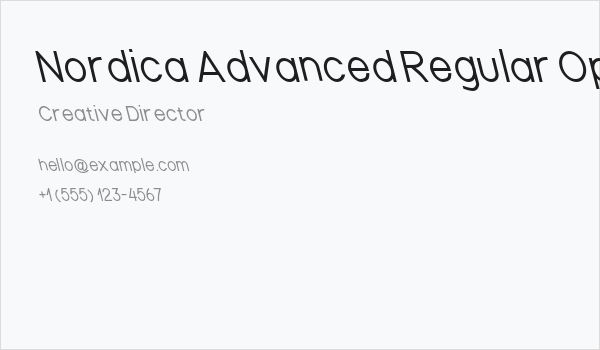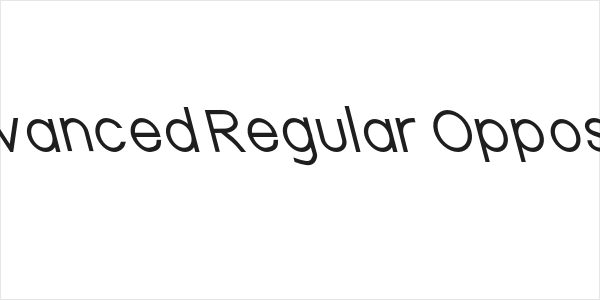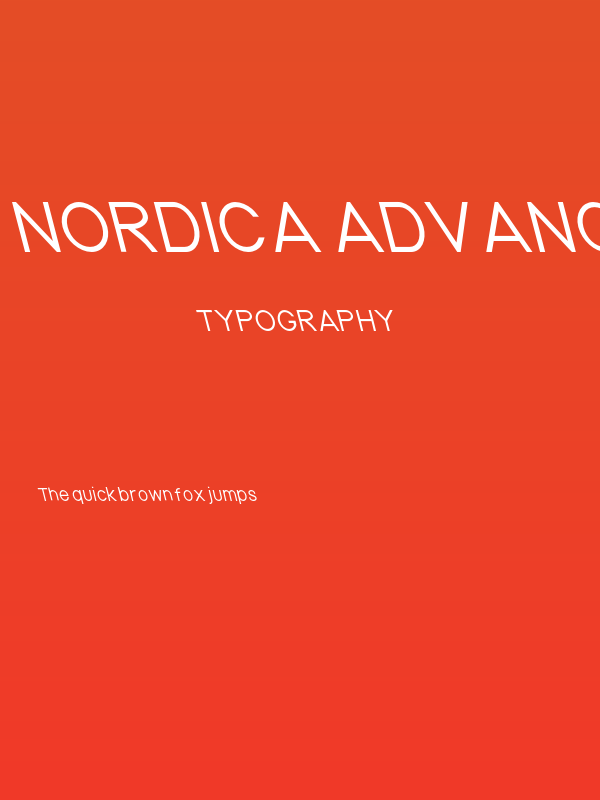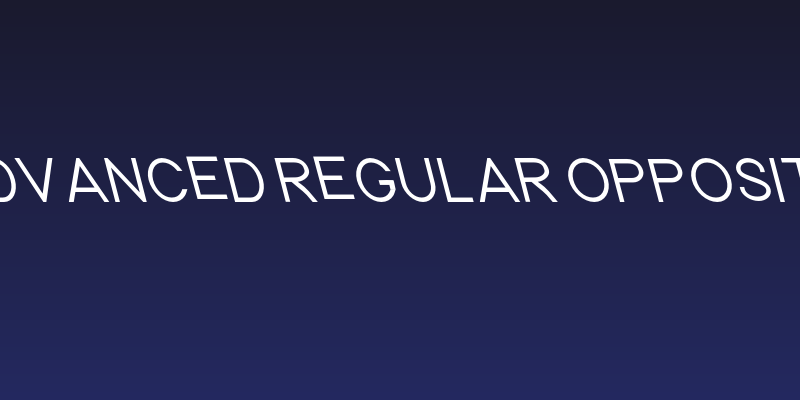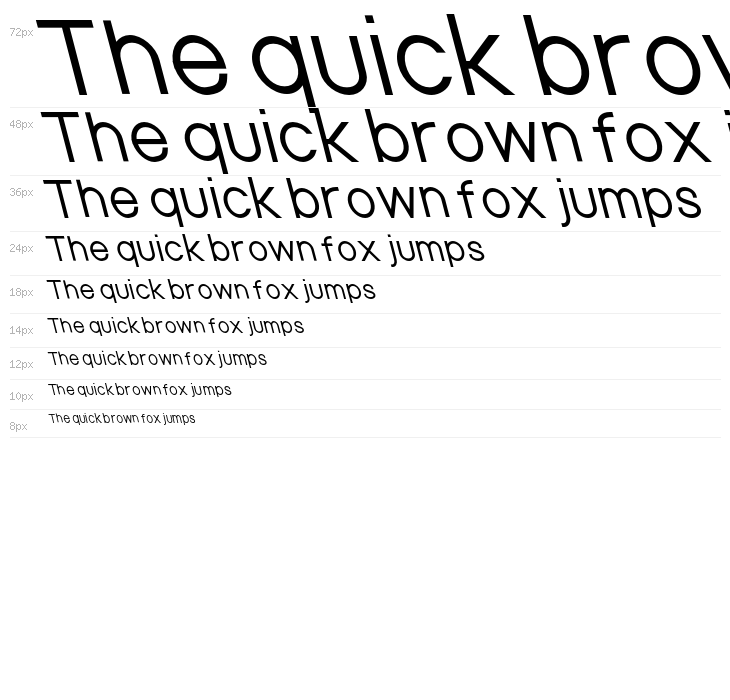
Nordica Advanced Regular Opposite Oblique Font
Nordica Advanced Regular Opposite Oblique Description
This typeface features a modern and sleek design with a slightly oblique orientation, giving it a dynamic and forward-moving appearance. The characters are clean and geometric, with consistent stroke widths that provide a uniform look. The uppercase and lowercase letters maintain a harmonious balance, while the numerals are clear and easy to read. Special characters are well-integrated, ensuring versatility across various applications. The overall aesthetic is contemporary and professional, making it suitable for a wide range of design projects.
| Proposed Projects | Ideal for branding, advertising, digital interfaces, and editorial design where a modern and professional look is desired. |